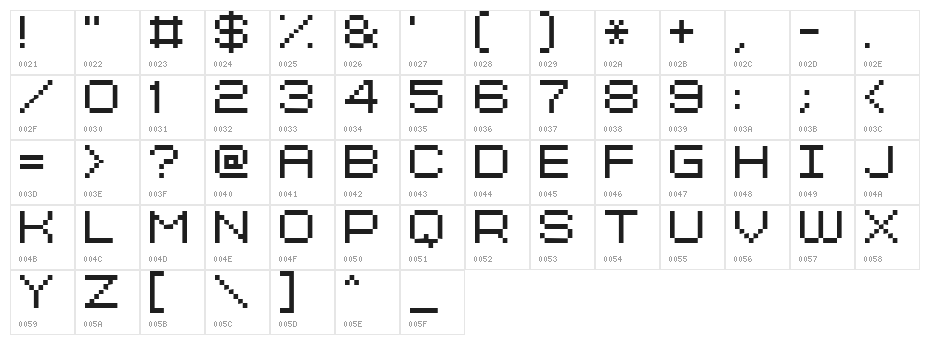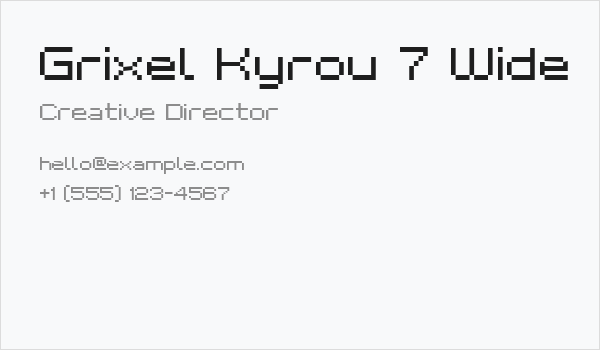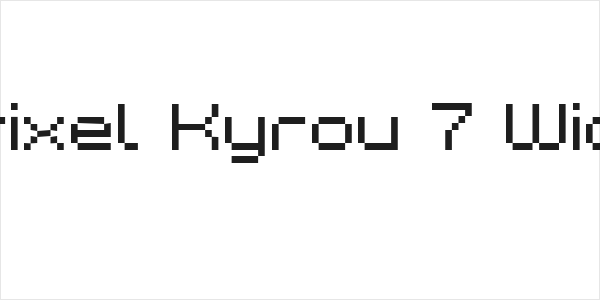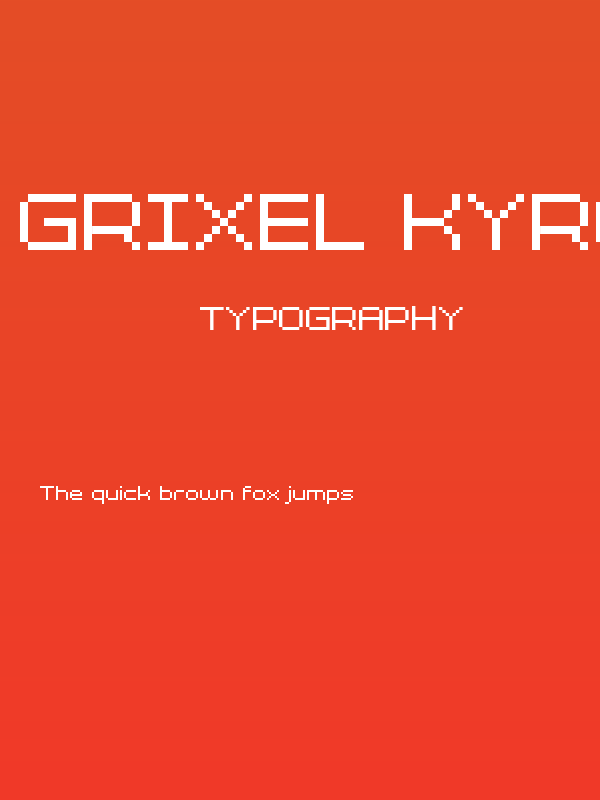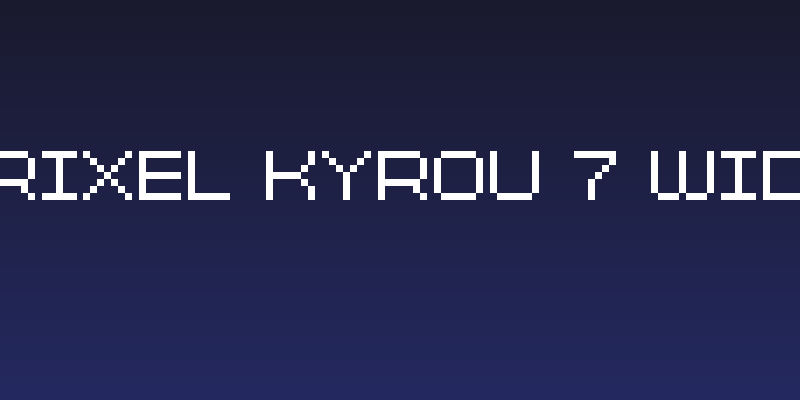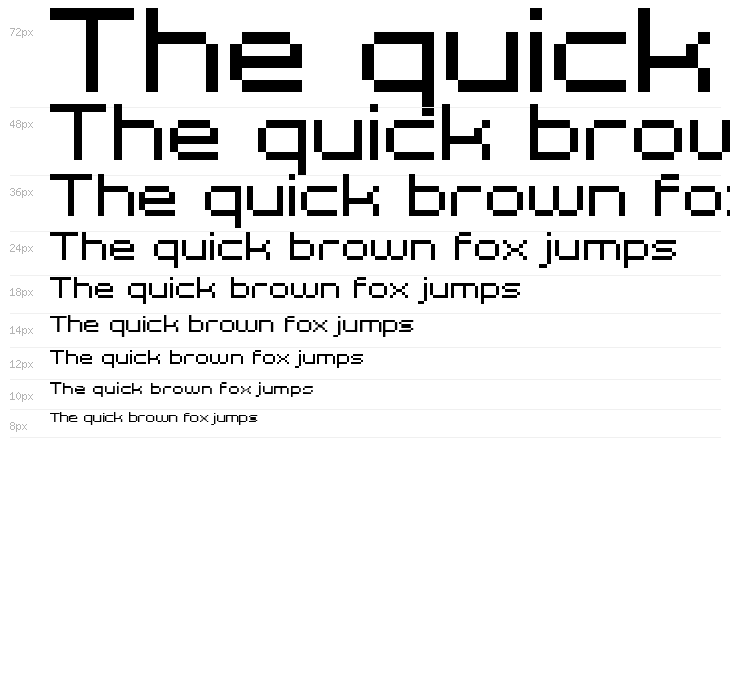
Grixel Kyrou 7 Wide Font
Grixel Kyrou 7 Wide Description
This font exhibits a pixelated, retro style reminiscent of early digital displays and video games. Each character is constructed with a grid-like precision, giving it a blocky, geometric appearance. The uppercase and lowercase letters maintain a consistent height, contributing to a uniform look. The numerals and special characters follow the same pixelated design, ensuring visual coherence across all elements. This font's nostalgic charm makes it ideal for projects that aim to evoke a sense of vintage digital aesthetics.
Overall StyleVintage
Use CaseHeadlines, Logos, Digital Art
Proposed ProjectsIdeal for retro video games, digital art projects, tech-themed posters, and any design that seeks to capture a vintage digital aesthetic.